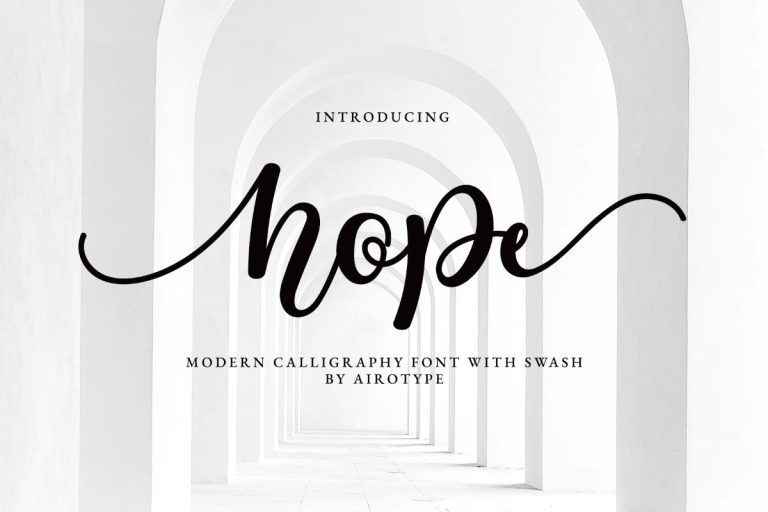
Hope
Hope is bouncy and cursive handwriting font. This font can be fun and elegant at the same time.
This font is versatile for design that needs handwritten touch, such as greeting card, wedding invitation, t-shirt design, crafting, sticker, tumbler, sublimation, and many more.
Features:
- Uppercase & Lowercase (with lowercase swash)
- Numeral and Punctuation
- Most Multilingual Accent